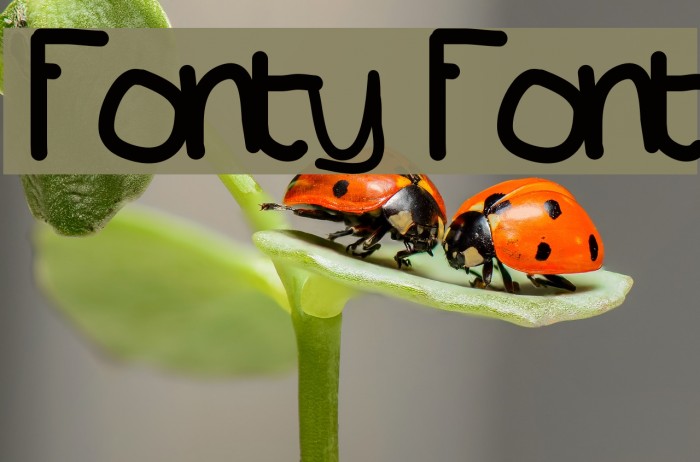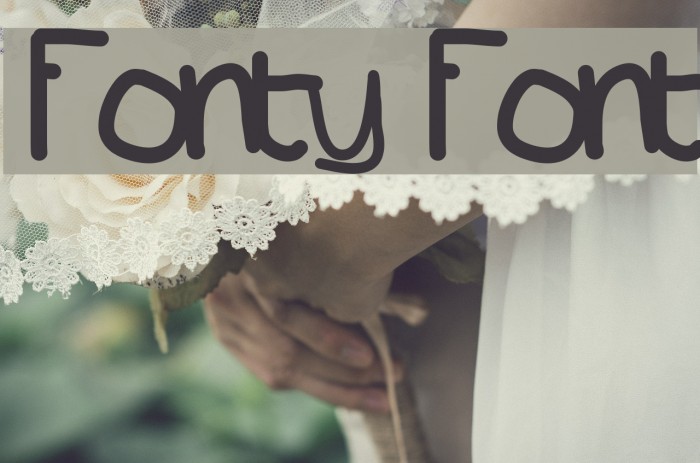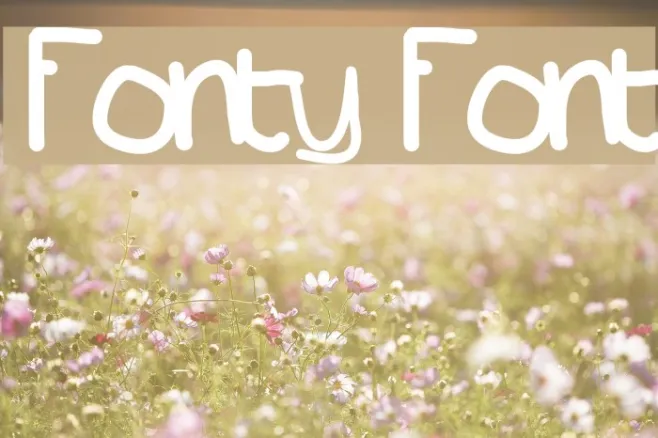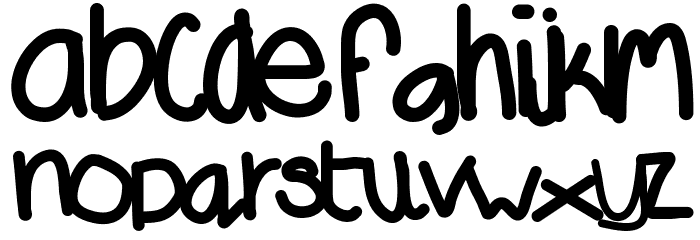
Fonty Font
This playful and bold font features a handwritten style with a whimsical touch. The characters are rounded and have a casual, friendly appearance, making them ideal for informal and creative projects. The uppercase and lowercase letters maintain a consistent style, with the uppercase being slightly taller and more pronounced. The numbers are equally playful, with a consistent thickness that matches the letters. Special characters are included, adding to the font's versatility. The overall look is energetic and dynamic, perfect for capturing attention.
A playful, bold handwritten font with a whimsical and friendly style.
• Proposed Projects: Ideal for children's books, playful branding, greeting cards, and creative posters.